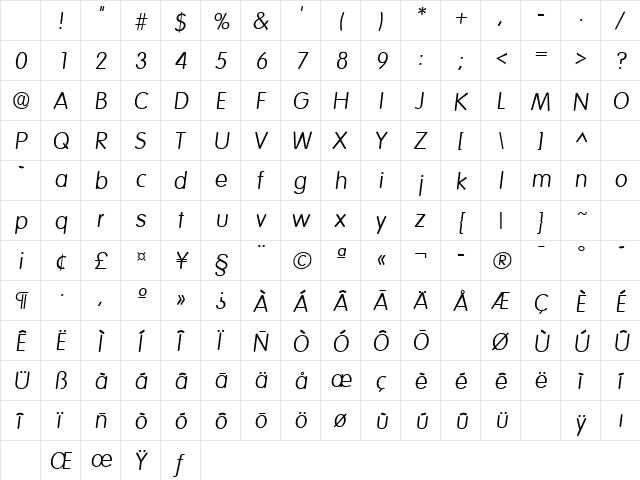
Elementary SF Italic
Elementary SF Family
Elementary SF Italic
Complete Elementary SF Italic glyph index. Displaying only characters natively supported by Elementary SF Italic font.
Design Context for Elementary SF
Elementary SF is a composed and adaptable typeface that performs quietly and consistently across a wide range of design contexts. The slanted form adds forward momentum and visual energy.
Pro Tip: Use Elementary SF for emphasis, pull quotes, and subheadings where its slanted energy can add rhythm to the layout.